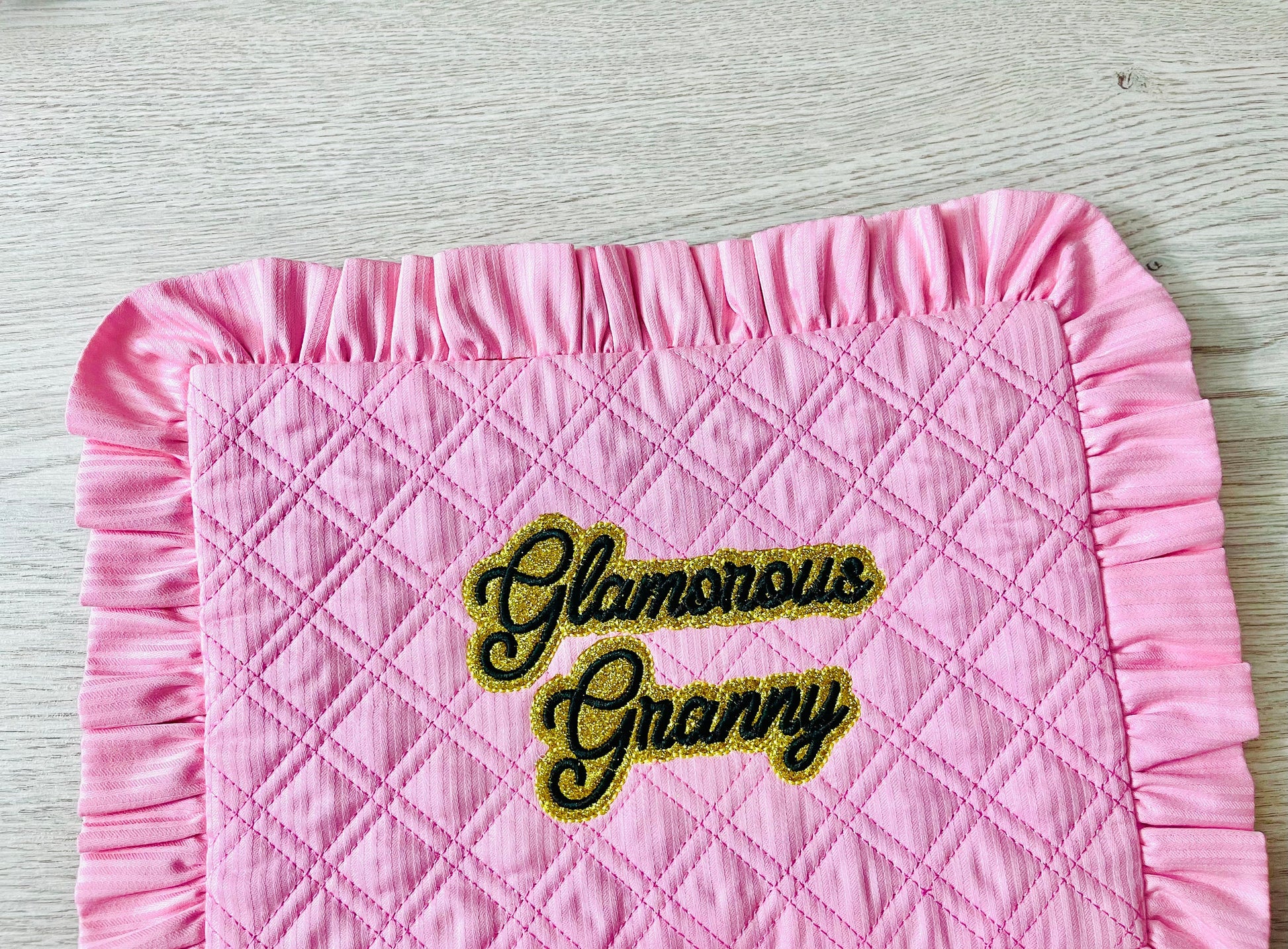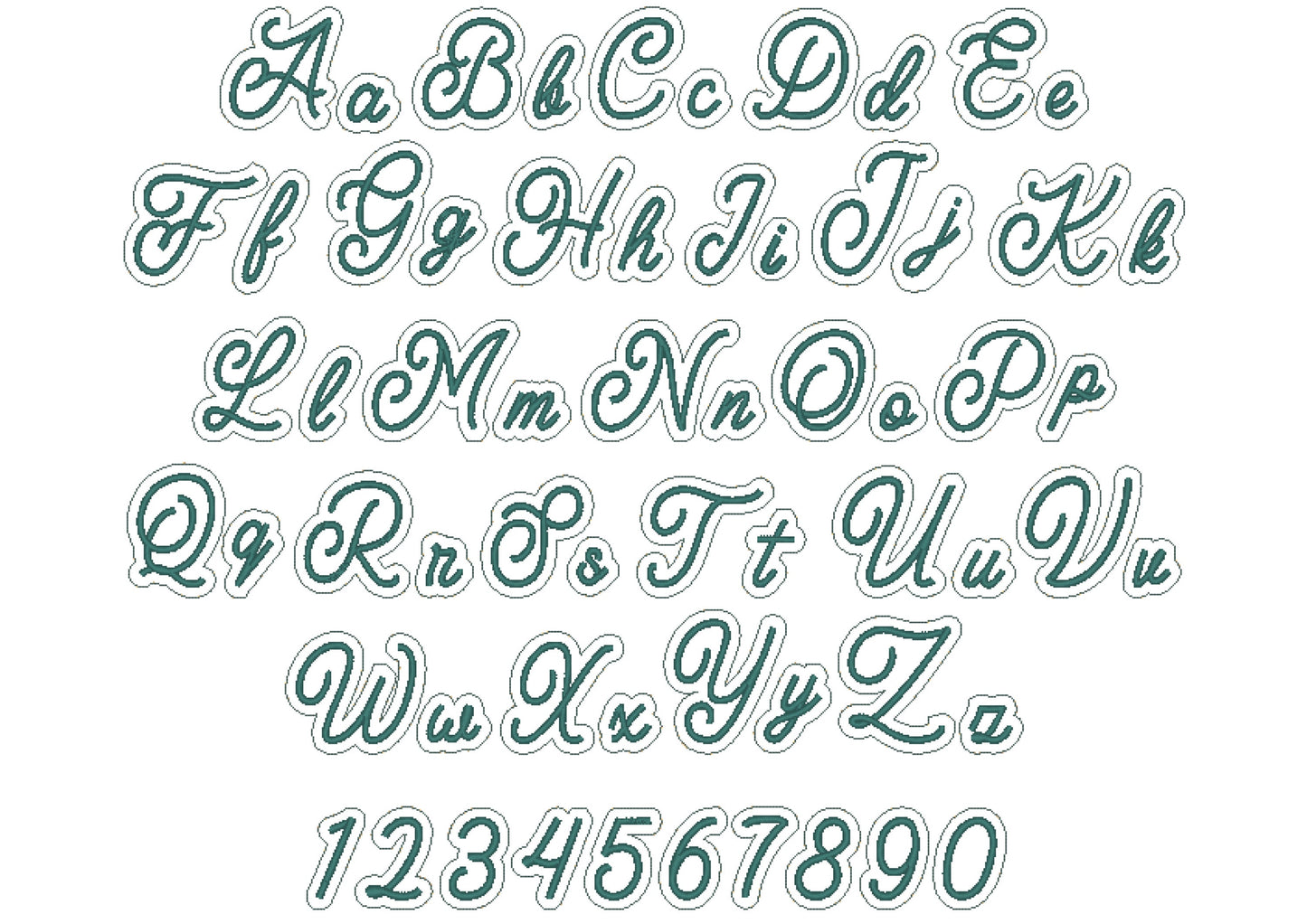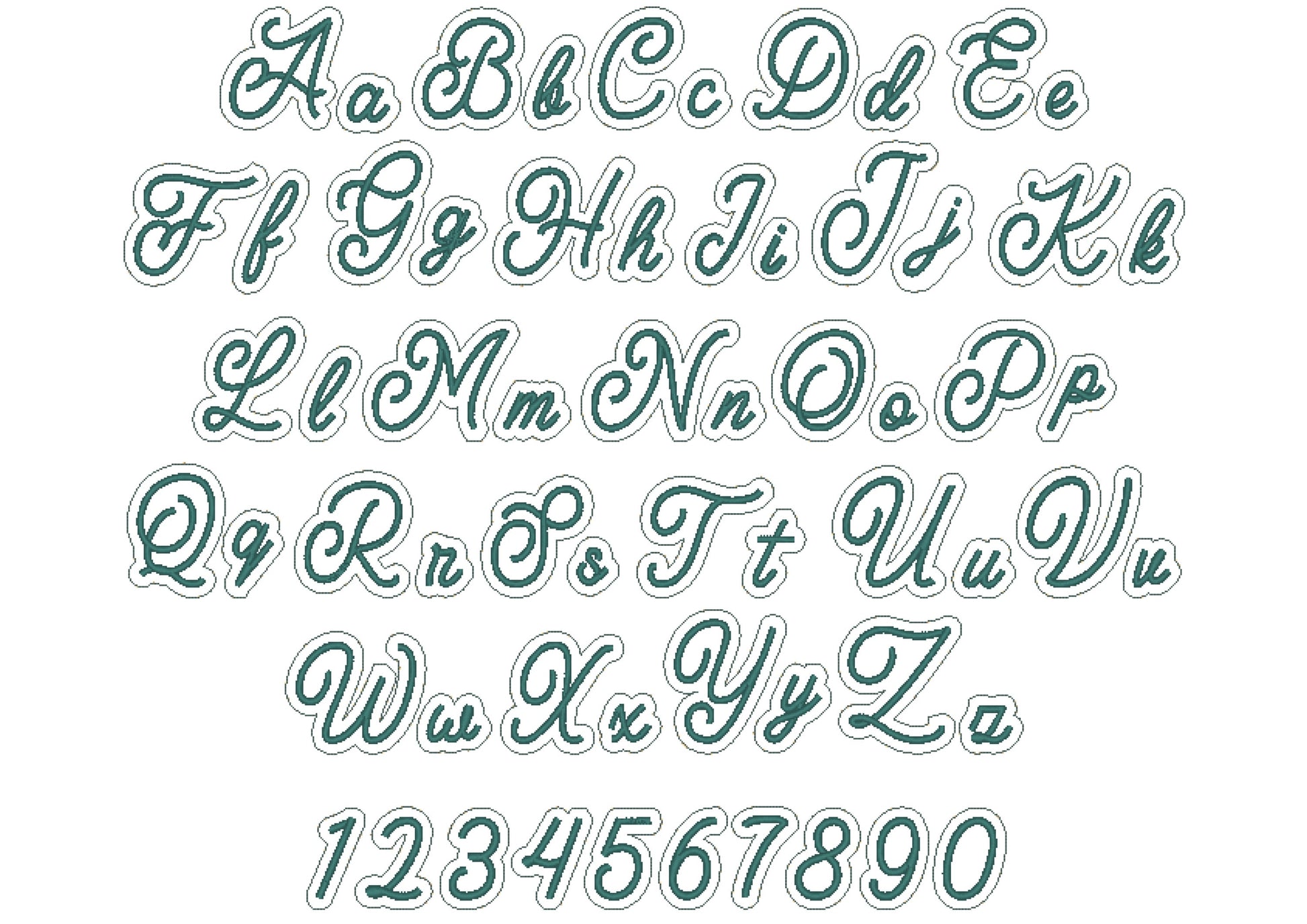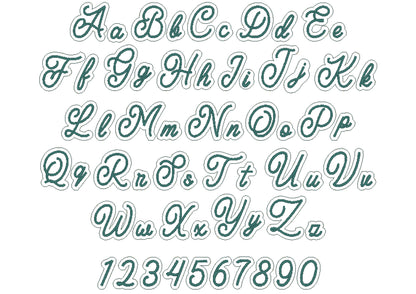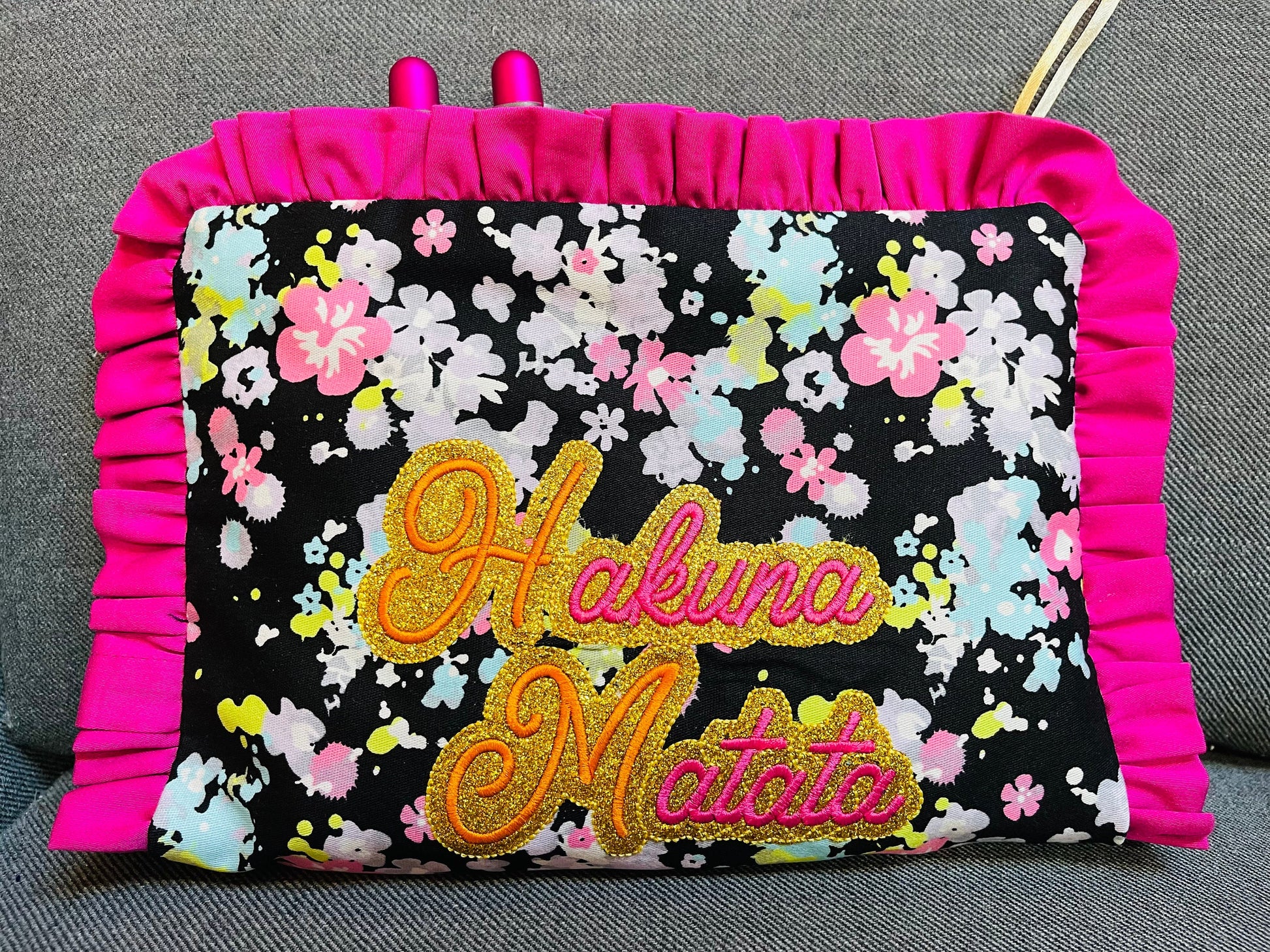
Glitter Vinyl Handwritten Satin Stitch Italic Font Glitter HTV Layer
Or click to open the linkAn italic handwritten applique font with a glitter vinyl layer and a satin edge. Sparkly for names on shirts, bags, hats and gifts.
Uppercase and lowercase letters, numbers 0 to 9 and punctuation. Eight sizes: 1.3, 1.6, 1.9, 2.3, 2.7, 3.3, 4 and 4.7 inches. Where letters join the lines overlap; with glitter vinyl and a matching thread this does not show.
- Glitter vinyl satin italic applique font
- Uppercase, lowercase, numbers 0 to 9, punctuation
- 8 sizes, 1.3 to 4.7 in